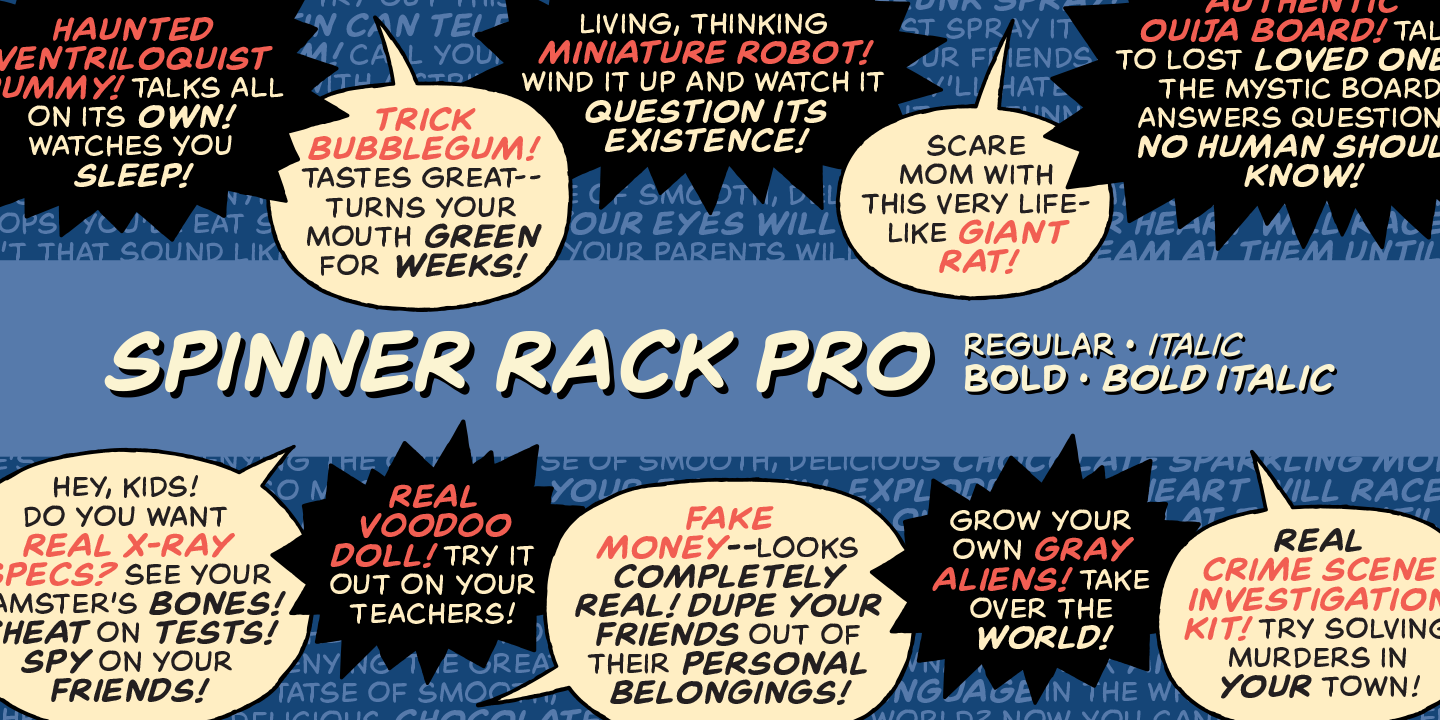
The Spinner Rack Pro BB Font is incredibly versatile, making it a fantastic choice for a wide array of design projects that aim to evoke a playful, retro comic-book aesthetic, and a bold, expressive personality. Imagine it bringing a vibrant, punchy energy to graphic novels and comic titles, making pop-art inspired posters truly stand out, or adding a distinctive, nostalgic touch to branding for retro-themed businesses and collectibles. It's also fantastic for crafting eye-catching event flyers, unique t-shirt designs, and engaging social media graphics that demand attention with their dynamic flair. Its inherent character and powerful presence make it perfect for any project striving to communicate fun, excitement, and a memorable, illustrative vibe.
What makes Spinner Rack Pro BB Font so exciting is its unique ability to capture the bold, action-packed spirit of classic comic book lettering while remaining highly legible and versatile. It often features strong, angular letterforms, a sense of exaggerated movement, or even subtle halftone textures that give it an immediate sense of dynamic energy and visual impact. This font doesn't just display text; it tells a story, making your message feel energetic, adventurous, and deeply engaging. Its balance of striking visual appeal and functional clarity ensures that your designs are not only eye-catching but also effectively convey their intended message. It's a typeface that brings an atmosphere of thrilling action and artistic dynamism to your typography, guaranteeing your projects leave a bold and unforgettable impression.
The Spinner Rack Pro BB Font family typically includes a variety of weights and stylistic options to provide extensive creative flexibility. While specific options can differ, you can generally expect to find alternatives like Regular, Bold, and potentially an Italic, Condensed, or even a specialized "action" style that further enhances its comic-book aesthetic. These different weights and stylistic sets allow you to create dynamic visual hierarchies and add nuanced artistic flair to your typography, ensuring a cohesive and compelling design. This comprehensive family support ensures that whether you need a strong, impactful headline or a subtle, genuine accent, Spinner Rack Pro BB Font Free Download offers the perfect elements to bring your vibrant vision to life.